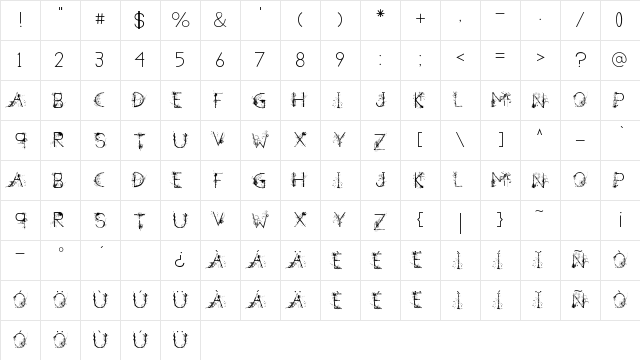
Complete A new Heard Decorative Italic glyph index. Displaying only characters natively supported by A new Heard Decorative Italic font.
A new Heard Decorative is built around its visual character rather than neutral utility - its distinctive forms are designed to make an impression at display sizes. The slanted form adds forward momentum and visual energy.